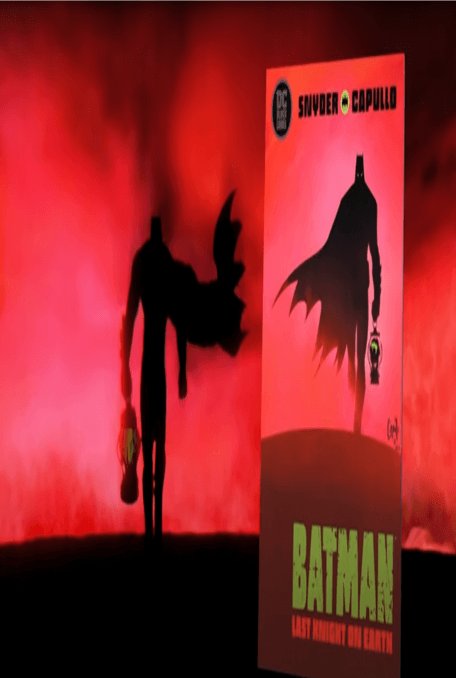
Batman Font
Batman is a superhero appearing in American comic books published by DC Comics. The character was created by artist Bob Kane and writer Bill Finger, and debuted in the 27th issue of the comic book Detective Comics on March 30, 1939. The font is available in all caps, licenced as free for personal use and is free to download. Click the above link to download batman font.